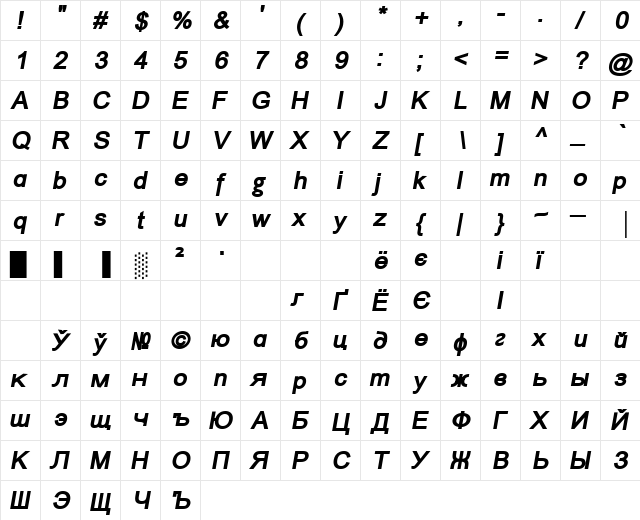
ER Univers KOI-8 Bold Italic Font Preview
Design Context for ER Univers KOI-8 Typeface
ER Univers KOI-8 takes a measured approach to typography — its balanced proportions and neutral character make it a reliable workhorse for both digital and print work. Its italic angle brings a sense of urgency and motion to the letterforms. Its bold stroke weight gives it real presence on the page.
Pro Tip: Try ER Univers KOI-8 for annotation and caption copy alongside an upright companion — the contrast in angle creates a dynamic but ordered typographic system.